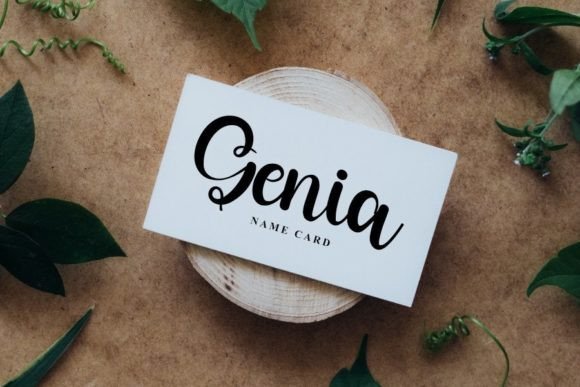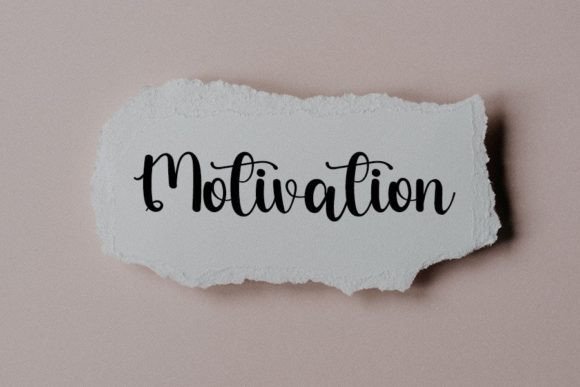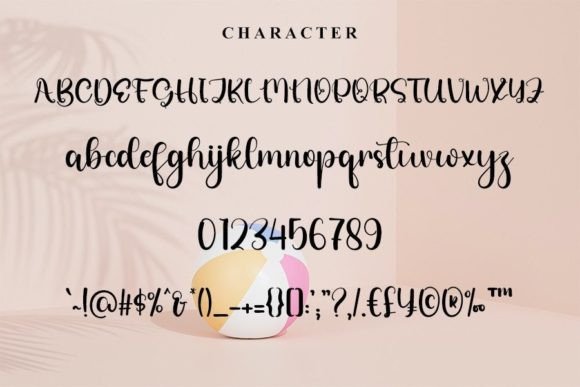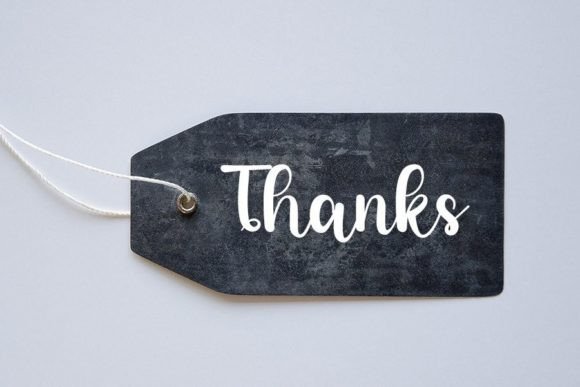
The Designer’s Delight: Getting to Know the Familiar Font
I still remember the time I was working on a project, pouring my heart and soul into creating the perfect design. But, as I sat staring at my computer screen, I realized that something was missing – the right font. I had tried countless options, but none seemed to capture the essence of my design. That’s when I stumbled upon the Familiar font, and it was love at first sight! ✨
A First Impression: What Makes Familiar Stand Out
Familiar is a neat and beautiful handwritten font that exudes an elegant touch, making it perfect for your favorite projects. Its incredibly distinct and timeless style makes it a versatile choice for designers, crafters, and creative hobbyists alike. With Familiar, you can create spectacular designs that are sure to leave a lasting impression.
What I Love About Familiar
• ✨ Elegant and sophisticated feel
• ✅ Highly legible, even at small sizes
• ✅ Wide range of applications, from wedding designs to branding projects
• ✅ Unique and distinctive style that sets it apart from other fonts
While Familiar is an excellent font, there are a few things to keep in mind: ⚠️ It may not be the best choice for very large or very small text sizes, as some of the details may get lost. 🤔 Additionally, some users may find that the font is a bit too ornate for very minimalist designs.
3. Experiment with OpenType features, such as ligatures and stylistic alternates, to add more personality to your design
3. Take advantage of advanced OpenType features, such as glyphs and swashes, to add more flair to your design
The Story Behind Familiar: Designer Inspiration
Familiar was designed with the intention of creating a font that was both elegant and approachable. The designer wanted to create a font that would be perfect for a wide range of projects, from wedding designs to branding and advertising. With its unique and distinctive style, Familiar is sure to become a favorite among designers and crafters alike.
Q: What makes Familiar a great choice for designers?
A: Familiar is a great choice for designers because of its unique and distinctive style, which sets it apart from other fonts. Its elegant and sophisticated feel makes it perfect for a wide range of projects.
Q: Is Familiar a difficult font to read?
A: No, Familiar is a highly legible font, even at small sizes. Its clear and elegant design makes it easy to read, even for extended periods of time.